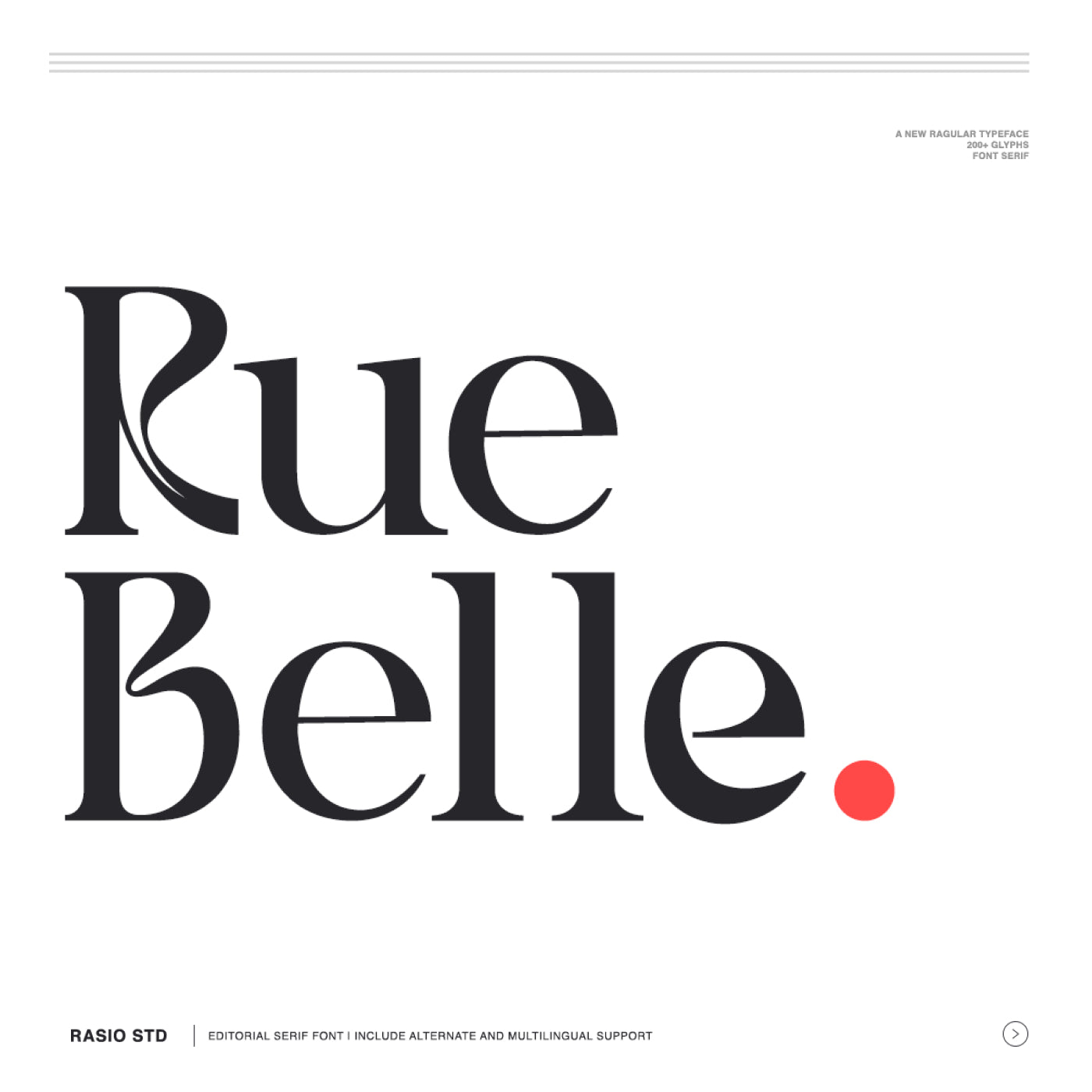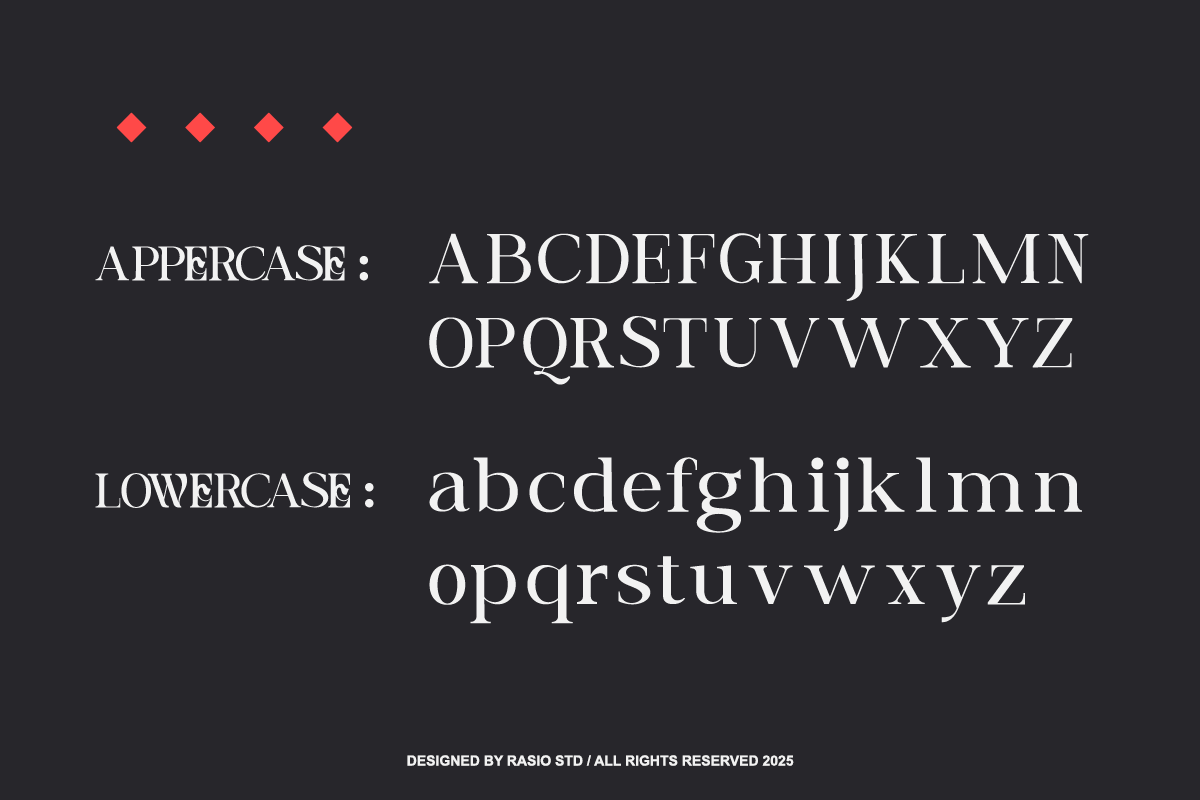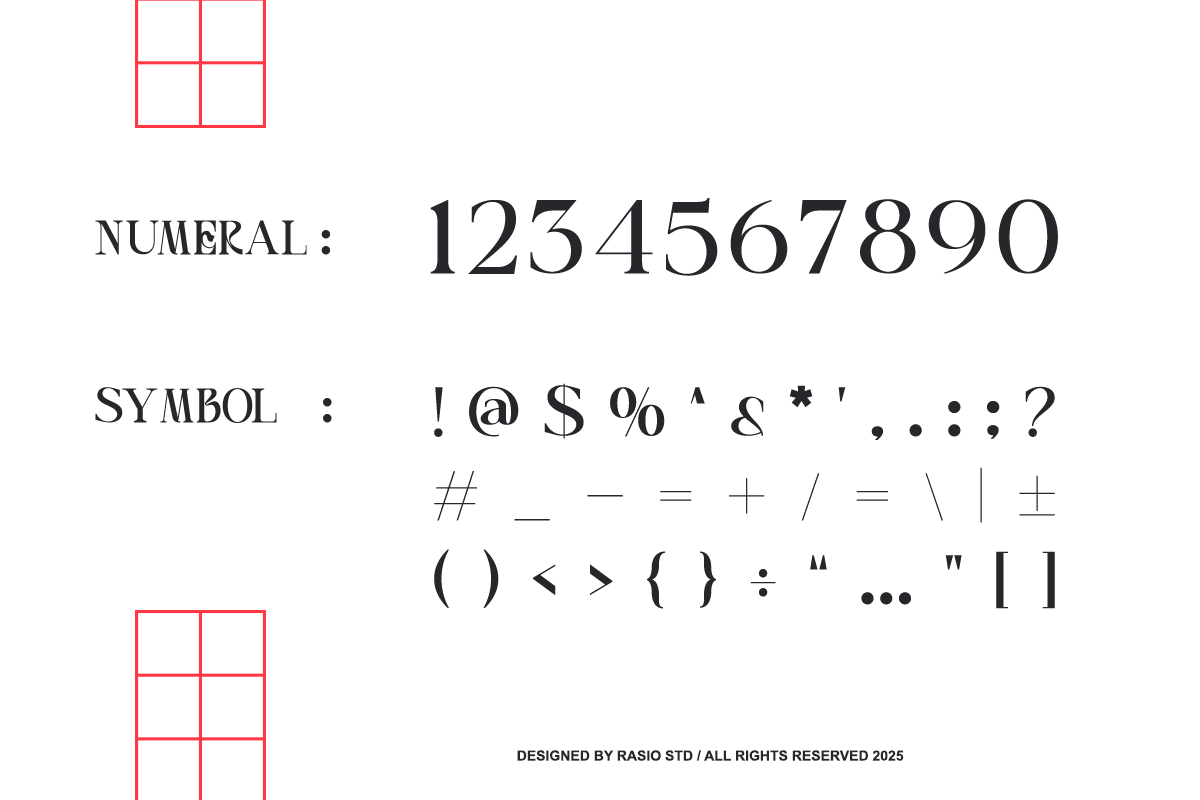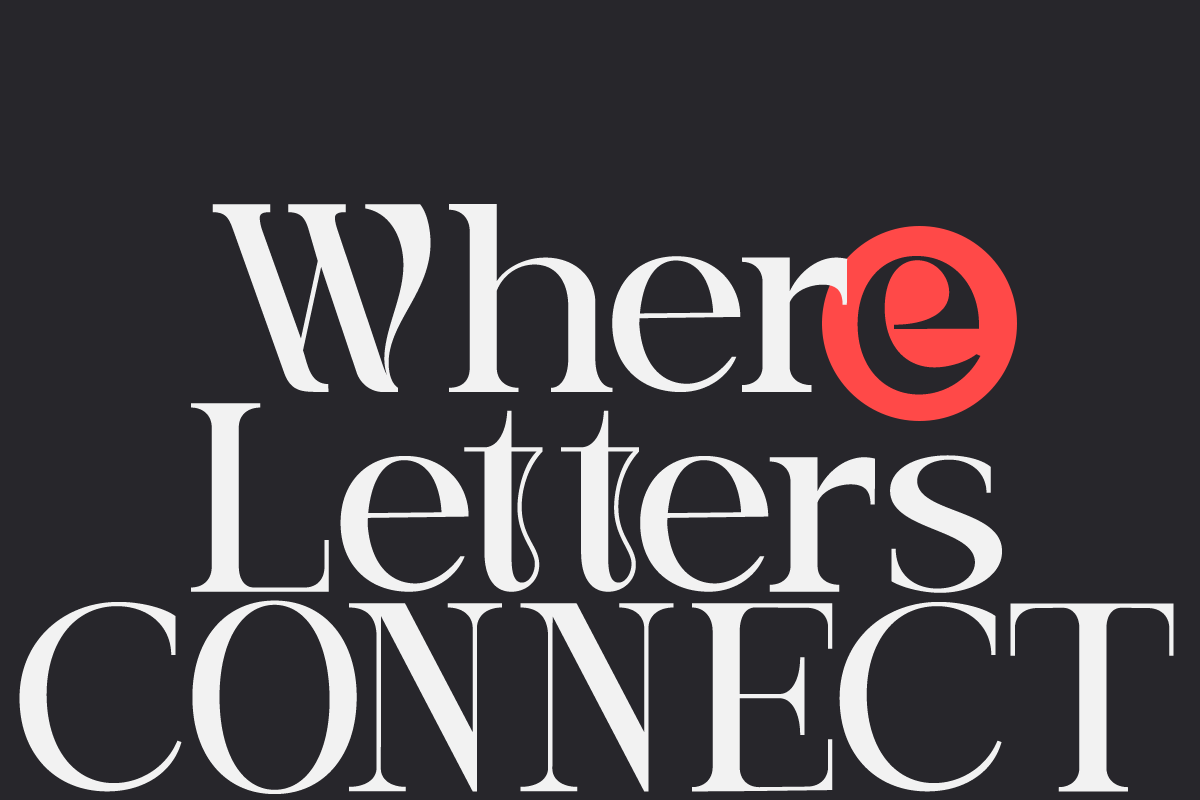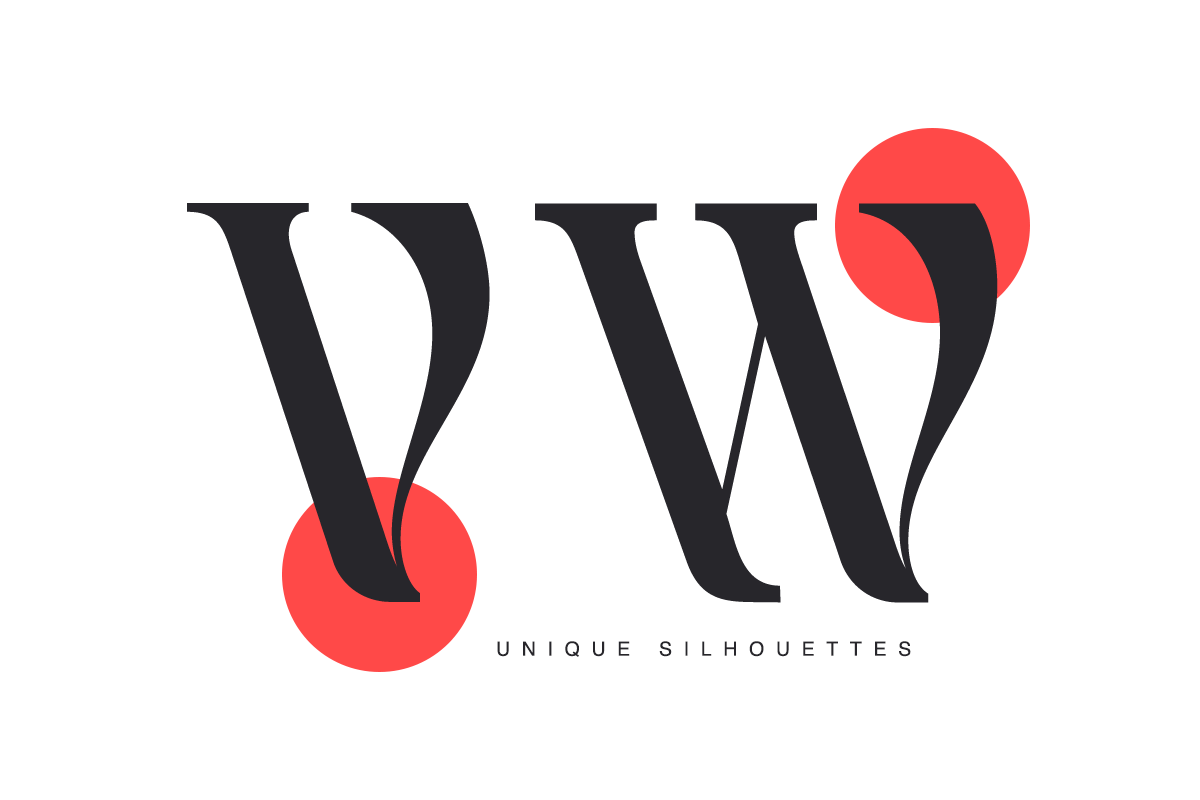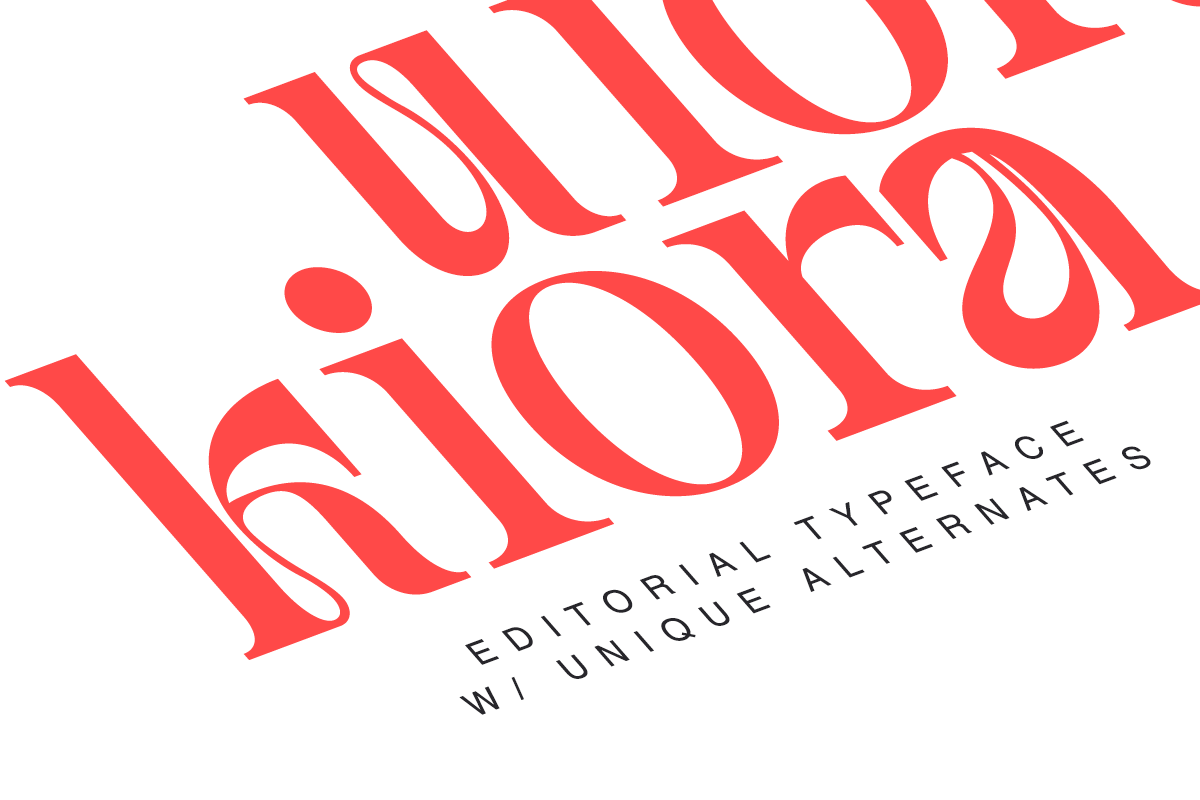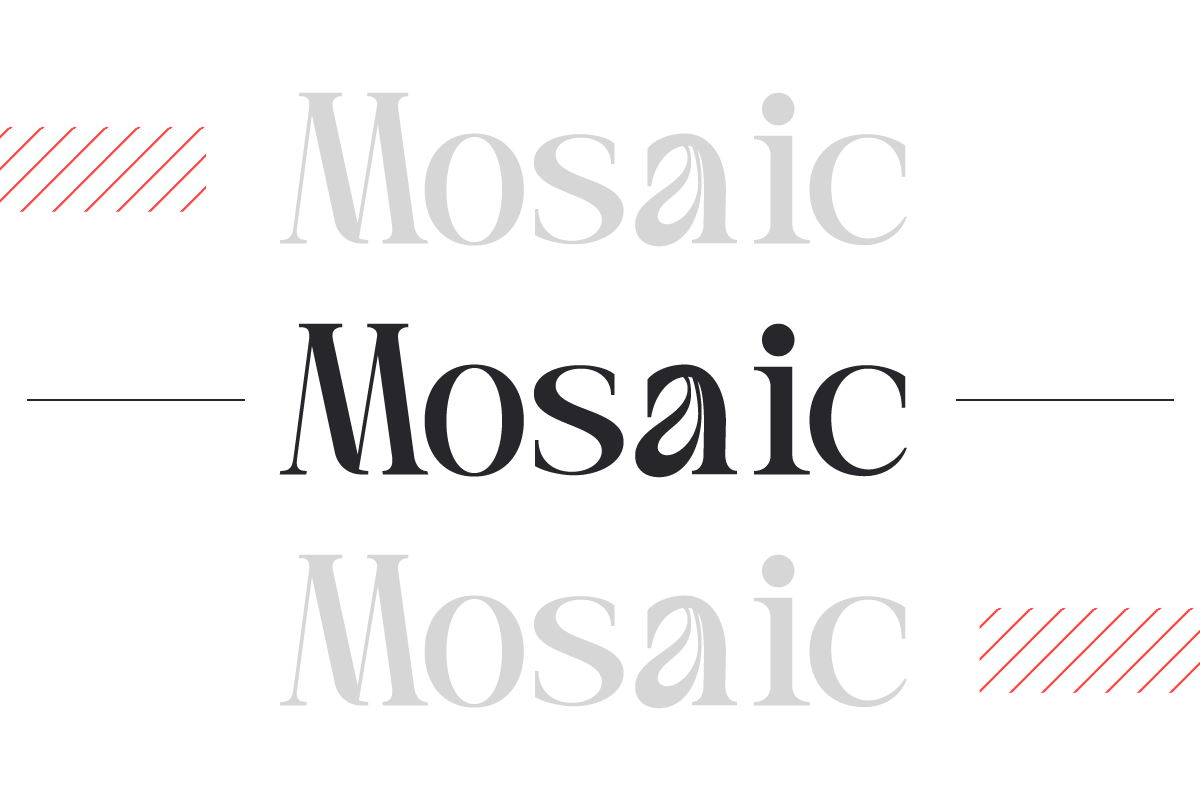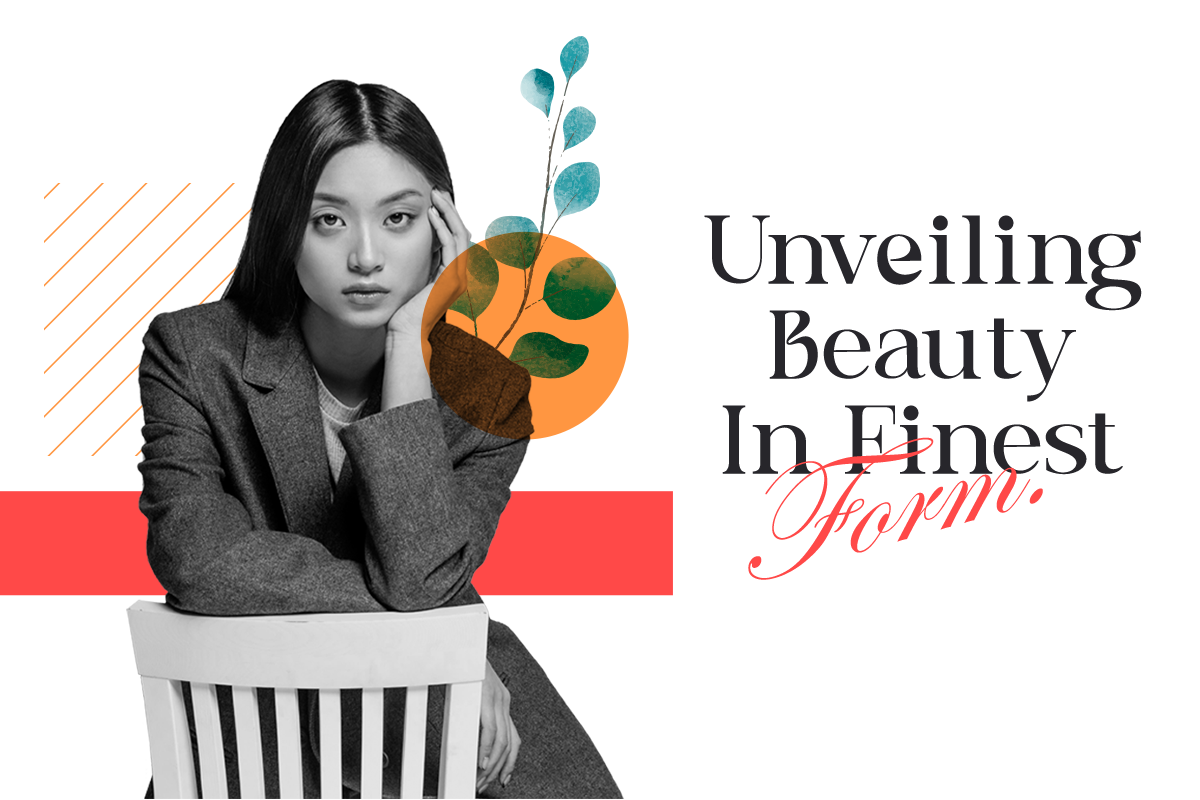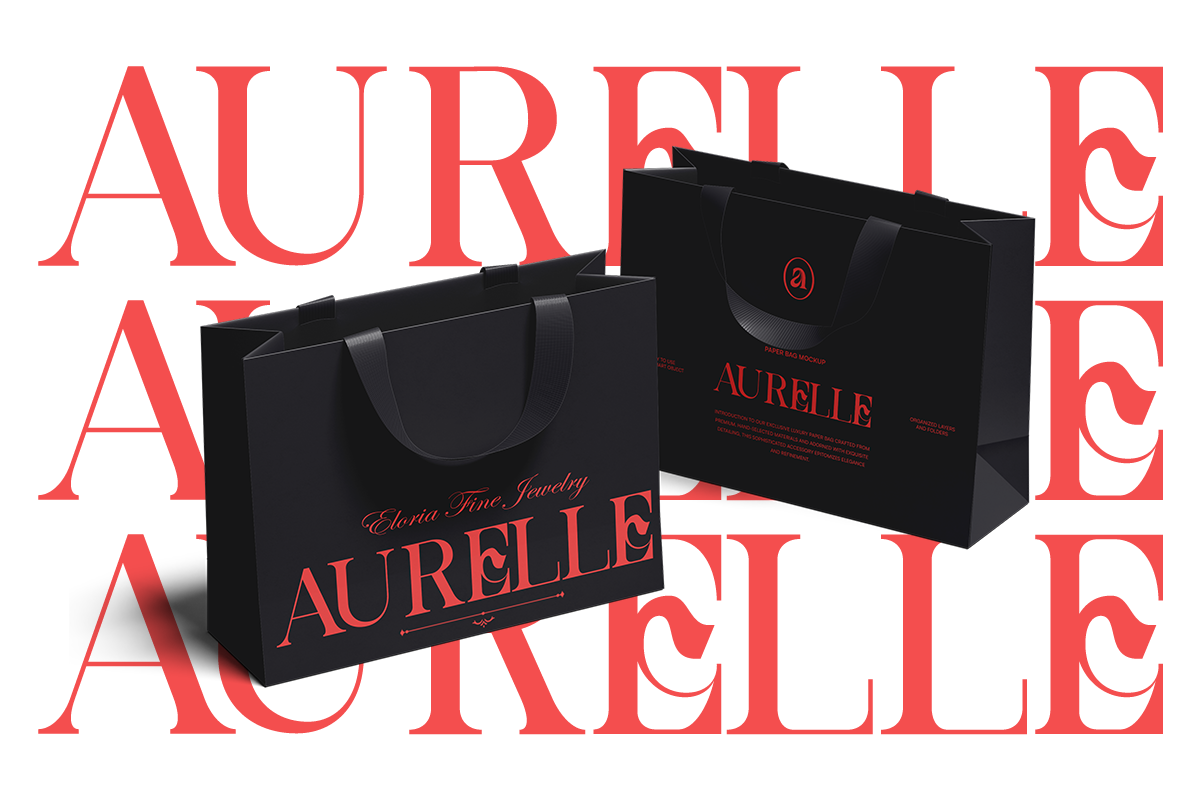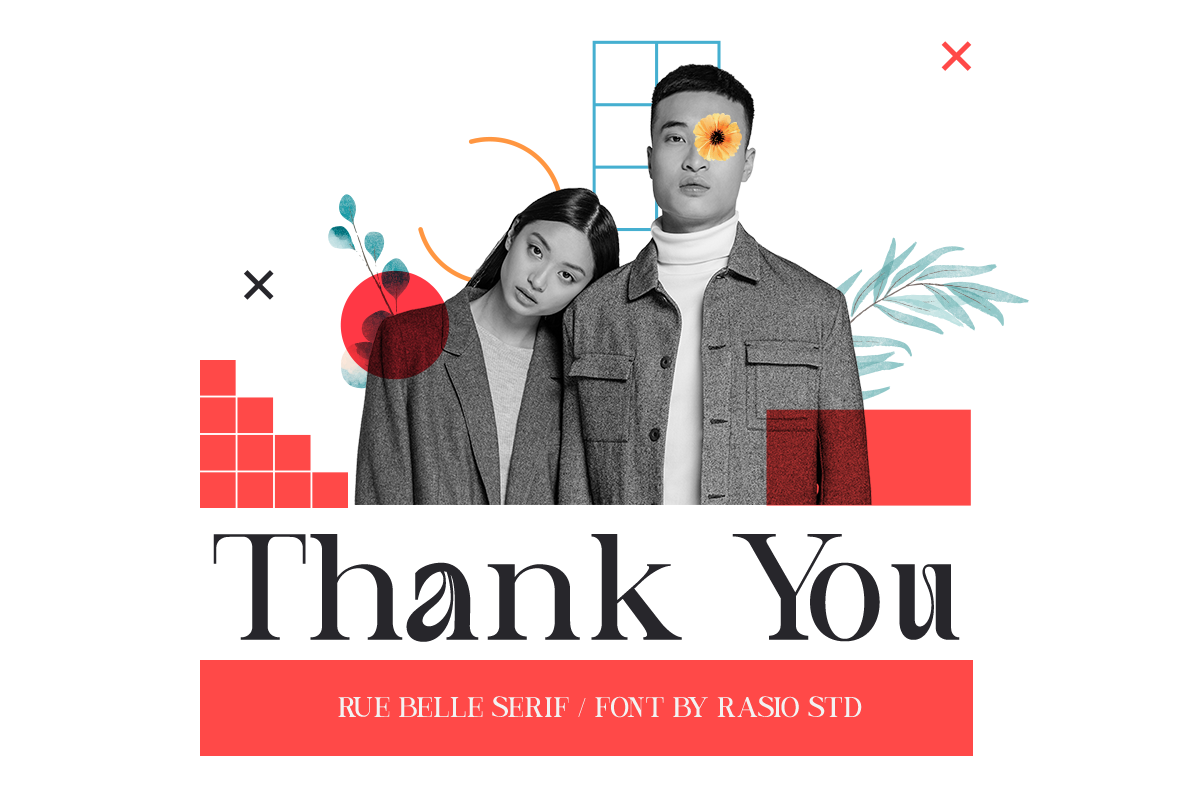
Rue Belle Editorial Serif Font
Rue Belle is a refined editorial serif typeface that fuses classic sophistication with contemporary style. Its gracefully tapered strokes and high‑contrast forms provide both visual poise and expressive depth, ideal for projects that demand stylish typographic character. Featuring beautifully cut serifs, balanced proportions, and elegant terminals, Rue Belle brings a sense of polished refinement to any design. The font includes a complete set of uppercase and lowercase characters, numerals, punctuation, and essential symbols, along with stylistic alternates for enhanced versatility.
Relevance and Use Cases is perfect for designers and creatives seeking a distinct yet refined serif voice. It excels in editorial layouts, luxury fashion branding, art and culture publications, book covers, premium packaging, elegant posters, and digital content that benefits from expressive typographic nuance. Its balance of classic serif roots and modern editorial flair makes it a versatile, high‑impact choice for print and screen applications.
Rue Belle is an editorial serif typeface featuring tapered strokes, high-contrast forms, and cut serifs with balanced proportions. It includes uppercase and lowercase characters, numerals, punctuation, ligatures, and stylistic alternates, available in OTF, TTF, and WOFF formats with multilingual support.